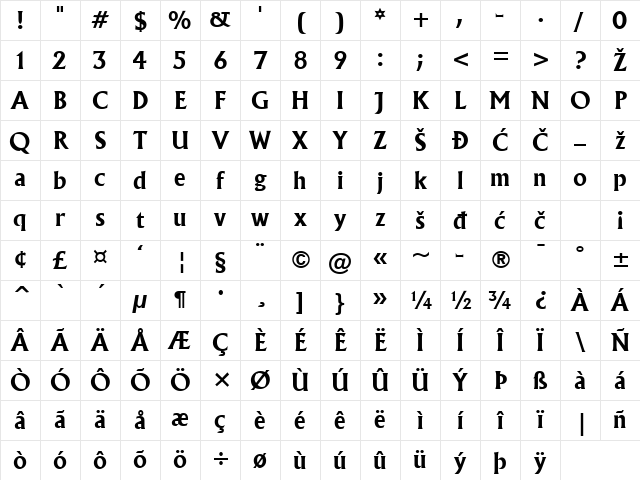
Flareserif Bold
Flareserif Family
Design Context for Flareserif
Flareserif carries the refined structure of traditional serif typography, with bracketed terminals and considered proportions that communicate credibility and craft. Its bold stroke weight gives it real presence on the page.